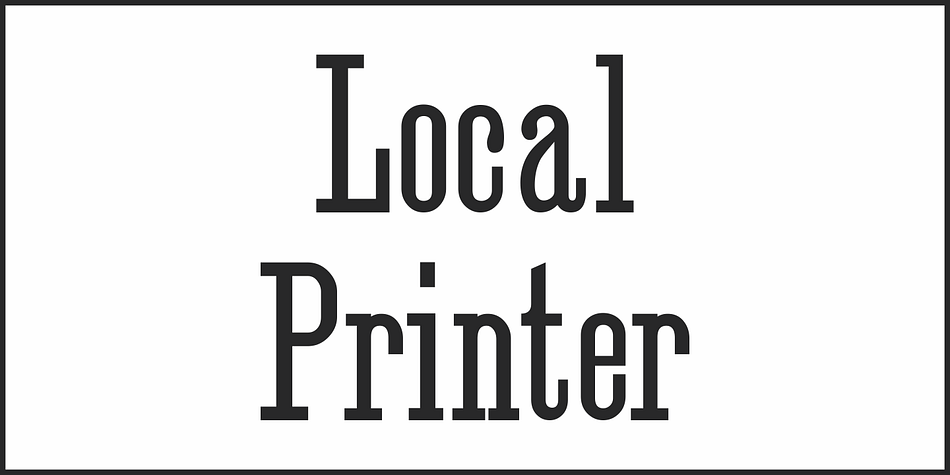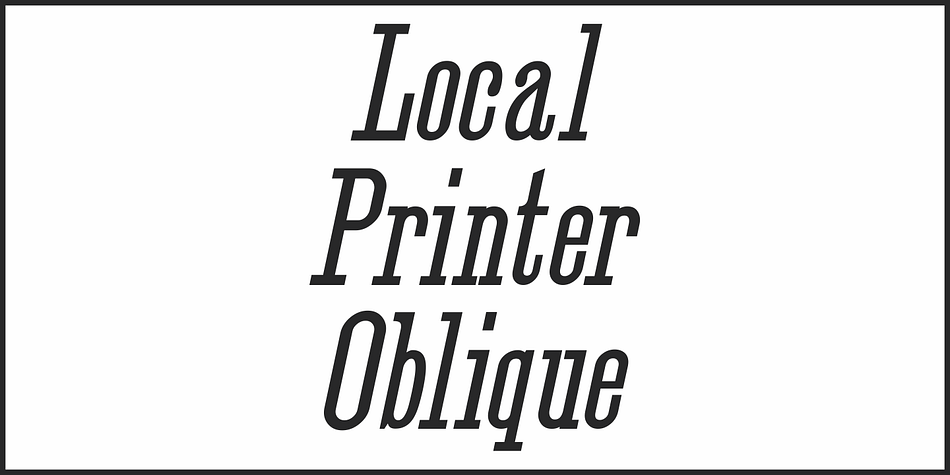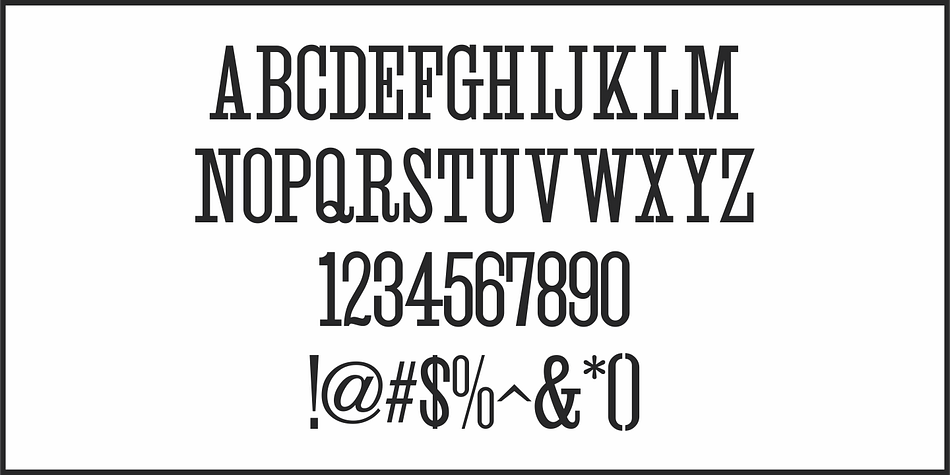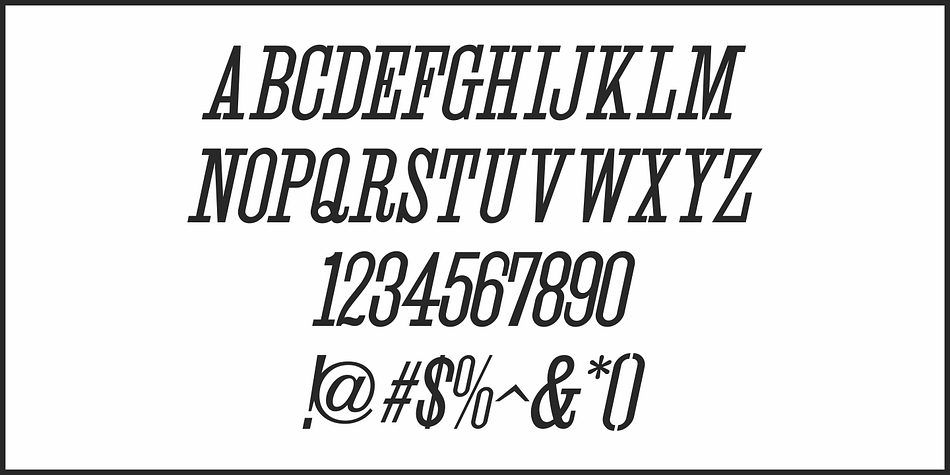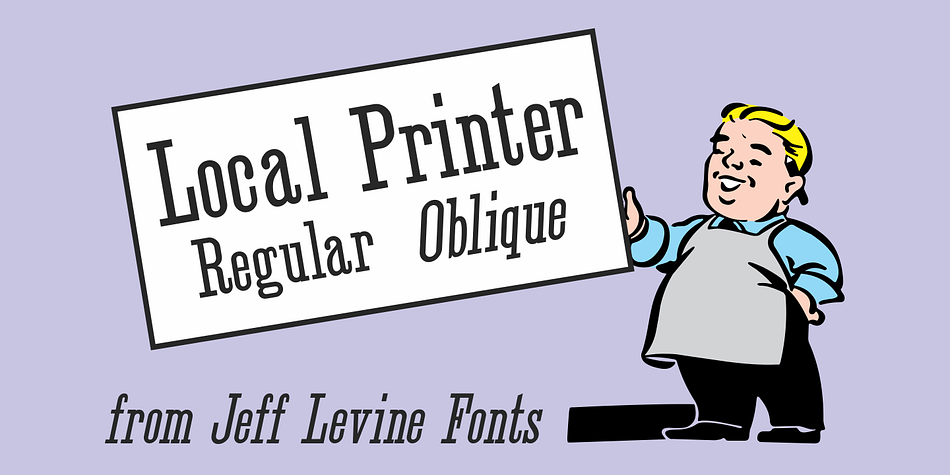
Local Printer JNL
Designed by Jeff Levine, Local Printer JNL is a display slab and typewriter font family. This typeface has two styles and was published by Jeff Levine Fonts.
Based on William Page’s Skeleton Antique wood type (circa 1865), Local Printer JNL is available in both regular and oblique versions.
Primarily used for text passages, the type design also works well in headlines and sub-headlines needing less emphasis and a touch of subtlety.